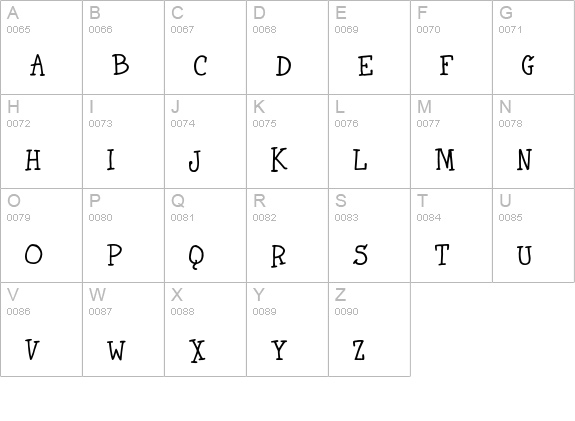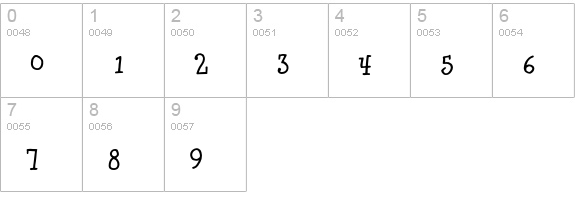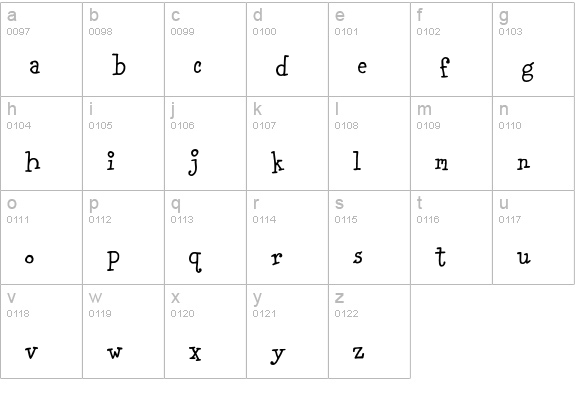
Carnation Font Details
Carnation font is a modern and elegant typeface that exudes sophistication and charm. Its delicate strokes and graceful curves make it perfect for adding a touch of refinement to any design project. Whether you're creating invitations, logos, or branding materials, Carnation font will elevate your work to the next level. Best of all, Carnation font is completely free to download at FontsMarket.com. With just a few clicks, you can bring this stunning font into your creative arsenal and start using it in your projects right away. Don't miss out on this opportunity to enhance your designs with the beauty and grace of Carnation font. Download it now and let your creativity soar!